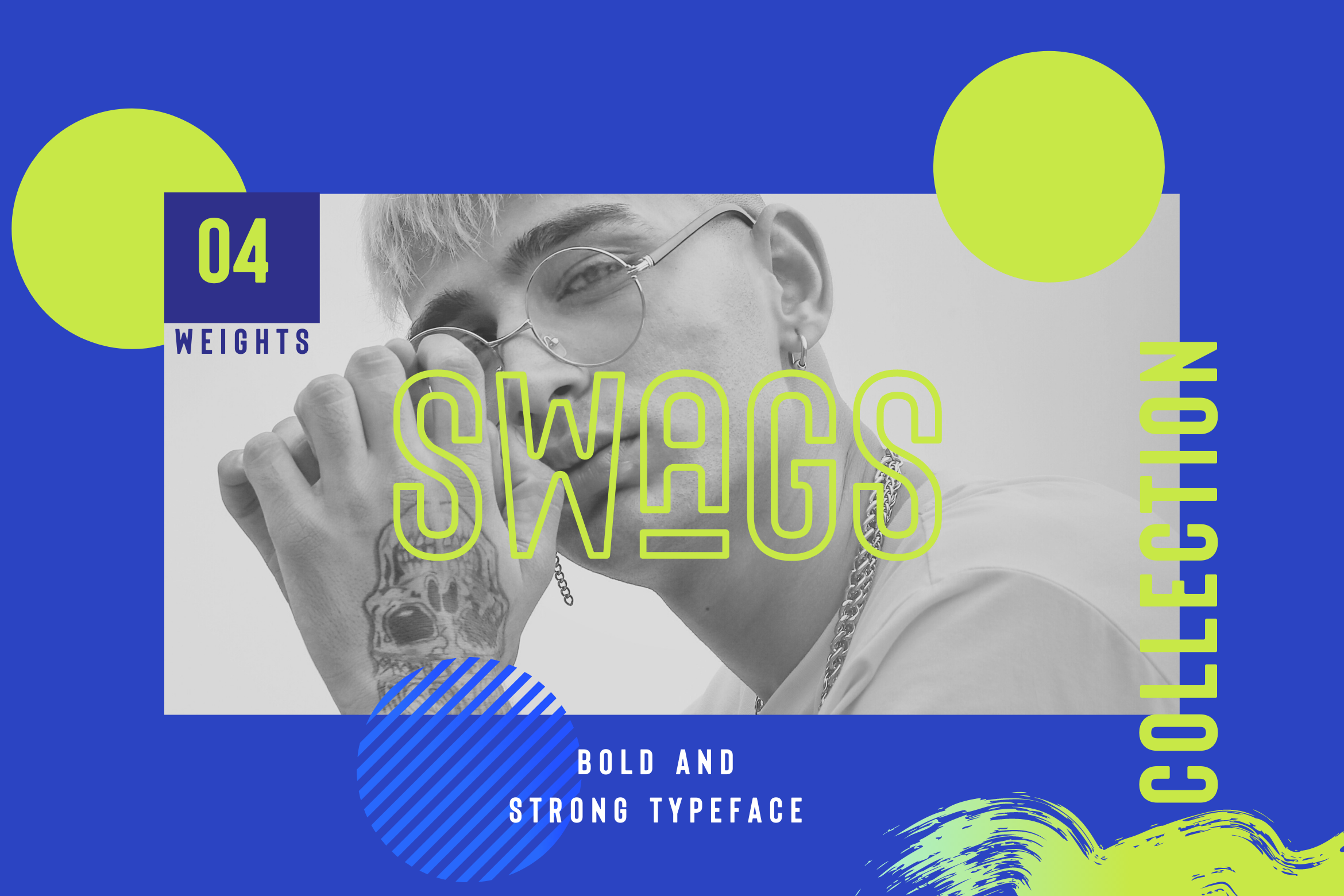
Urbano Bold Typeface
Introducing Urbano Swag - Its a young and cool playful bold sans serif font family made to be a perfect choice for titles and headlines. It works very well for posters especially for magazine or print but it's versatile enough to be a good fit for a multitude of projects as well as for logos or other graphics that require strong and impactful typography. Have fun and create more.. Your Imagination only your limit!!
- 4 Weights font
- All caps
- Stylistic Alternates & Ligatures